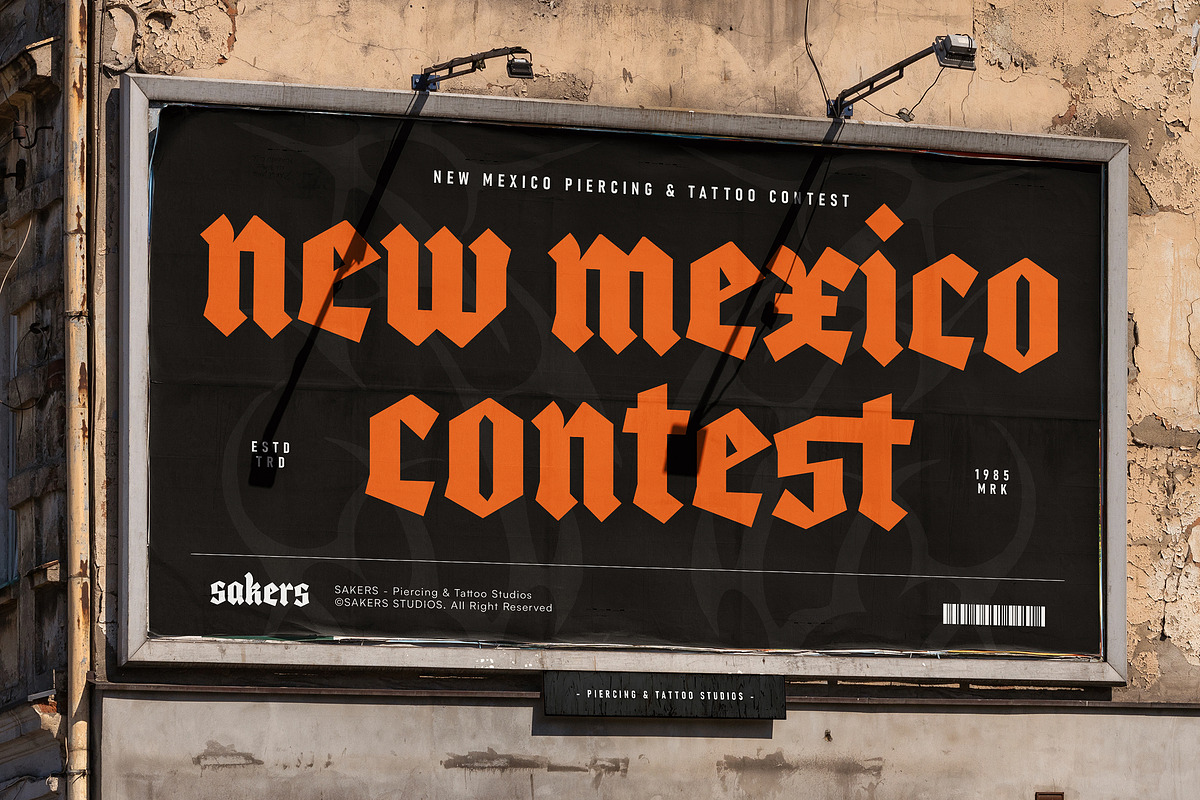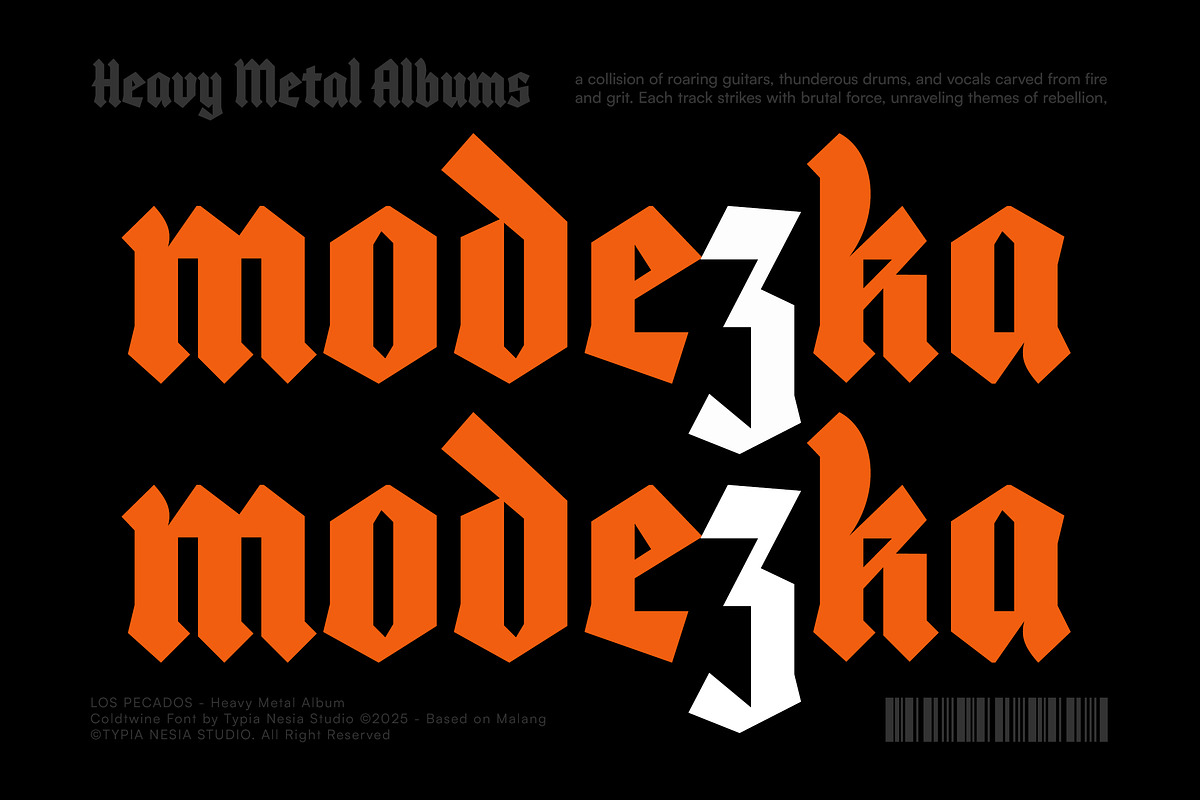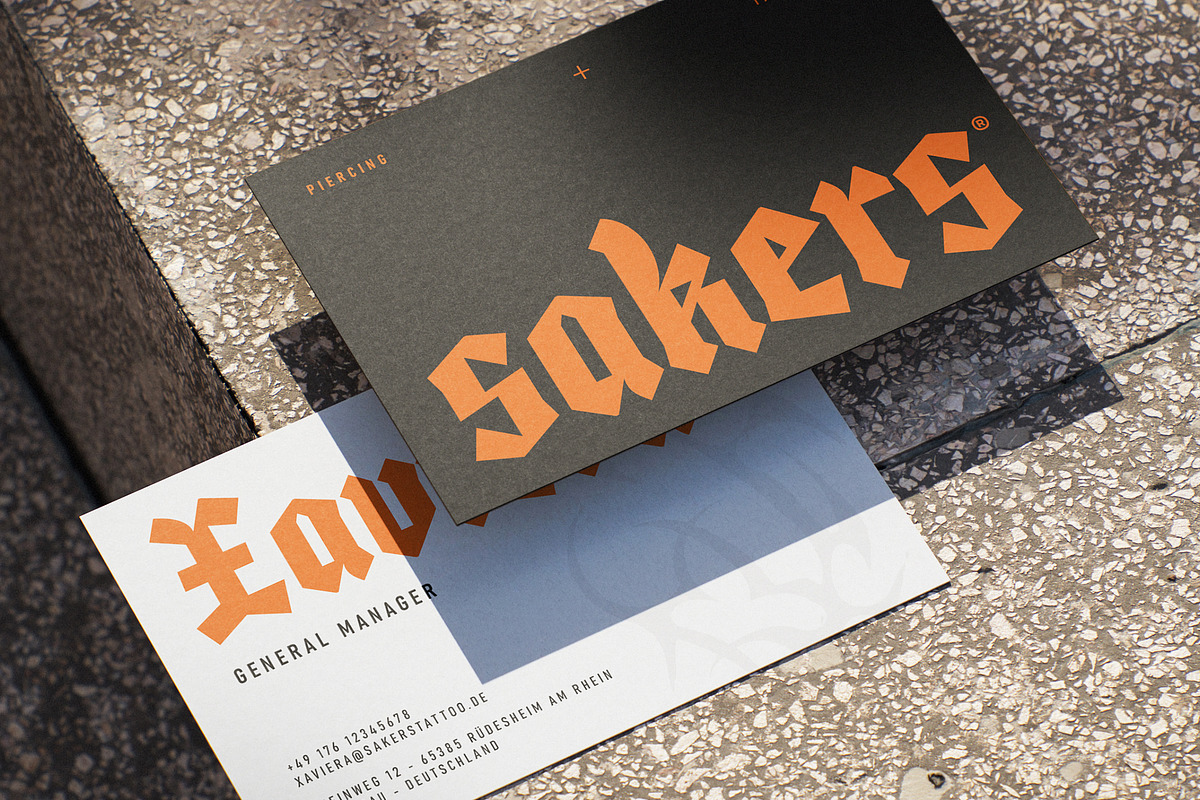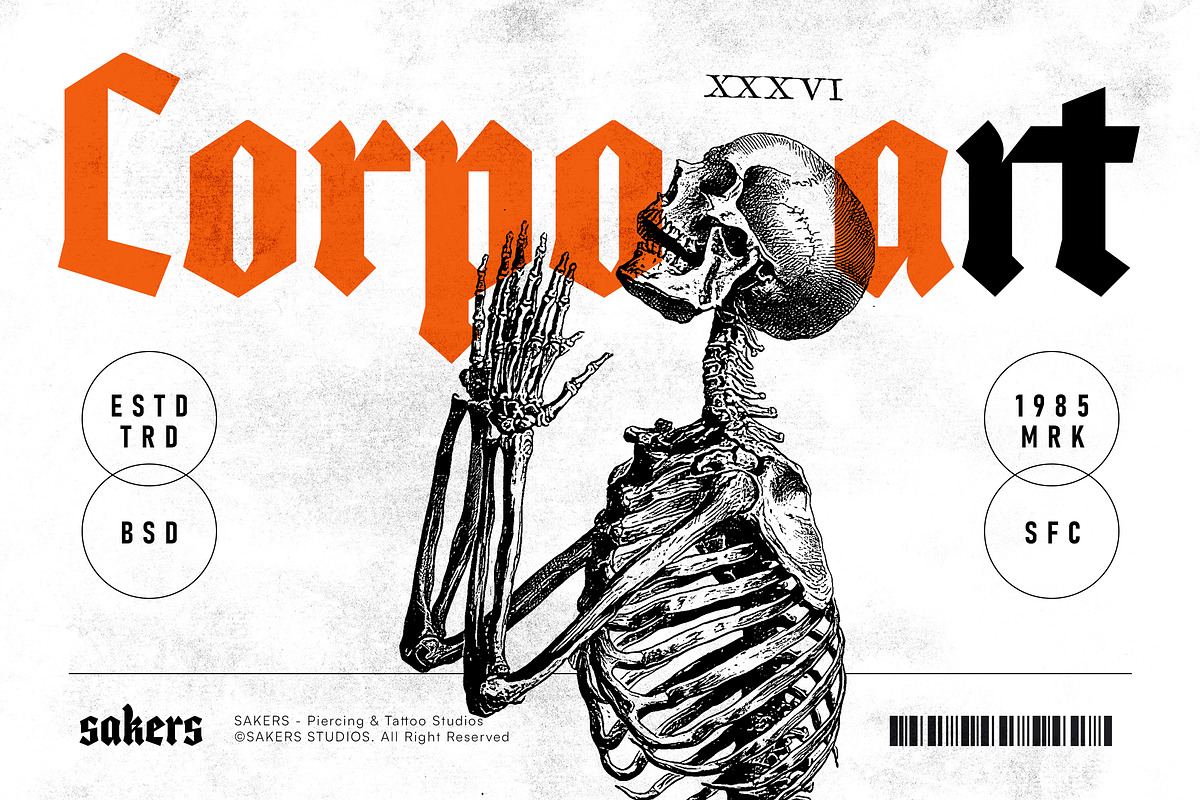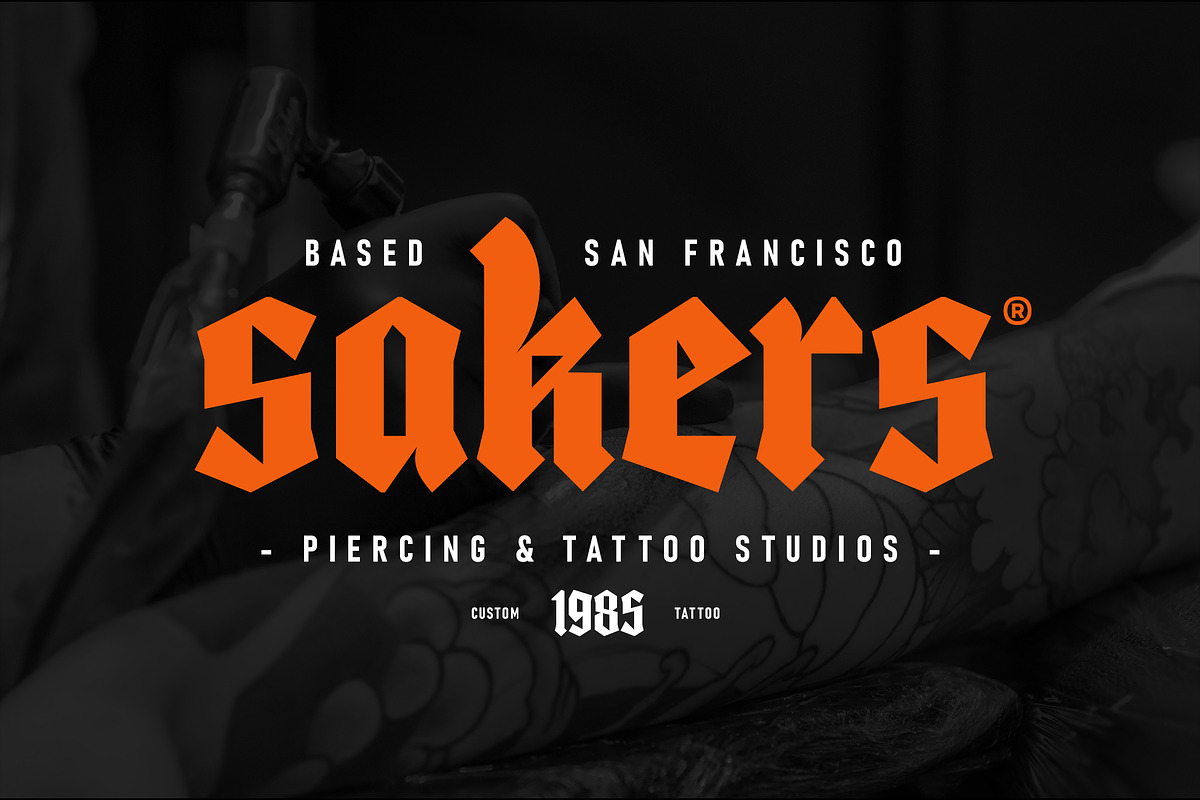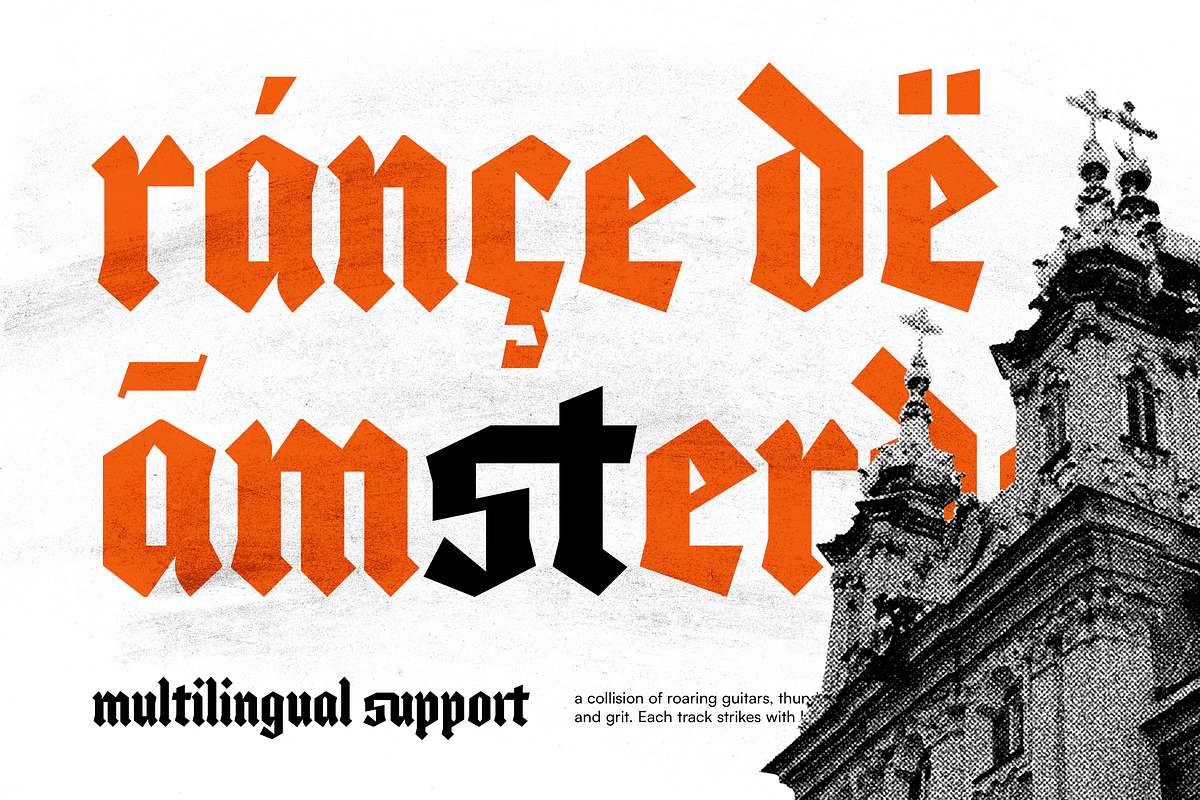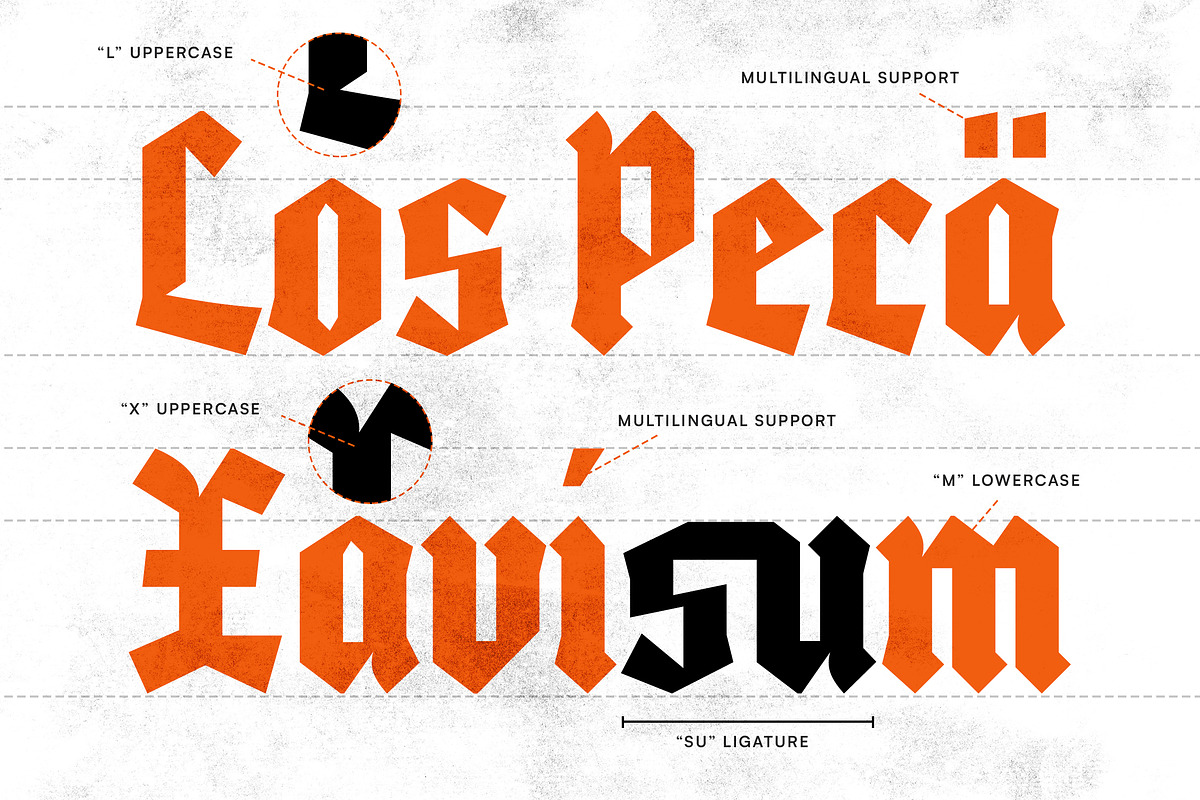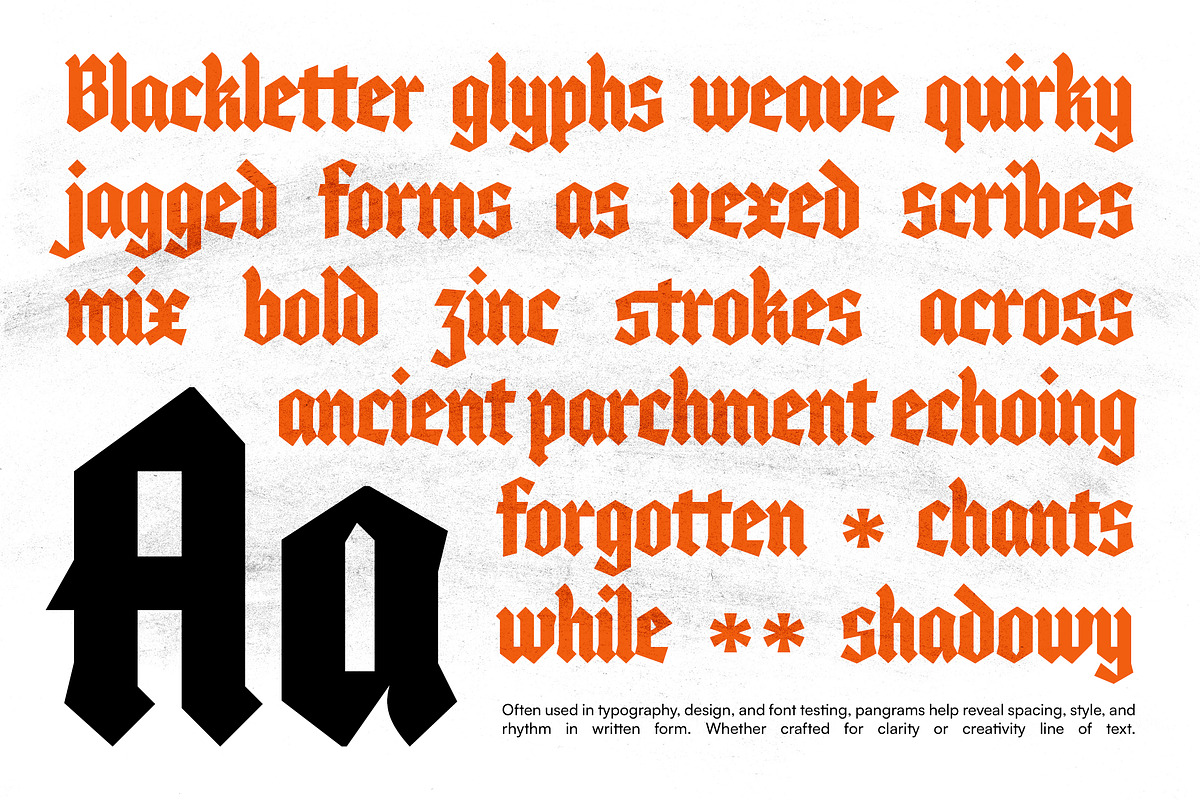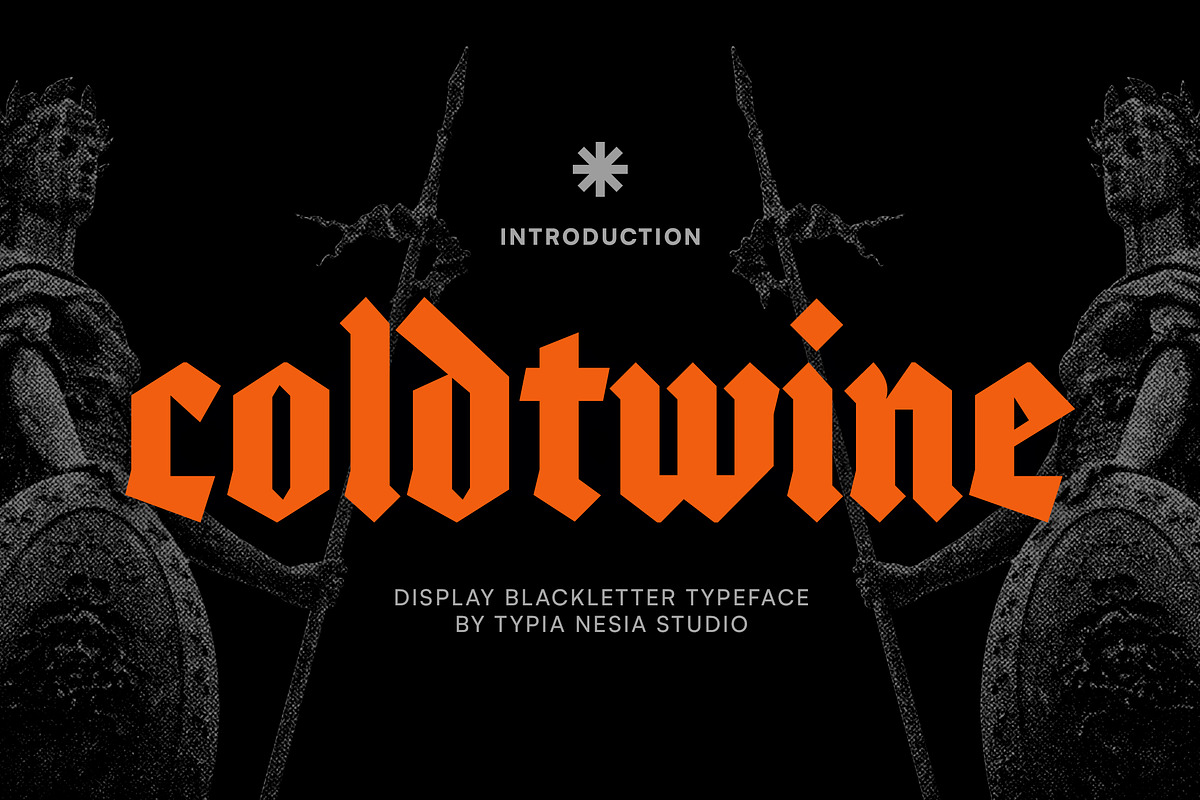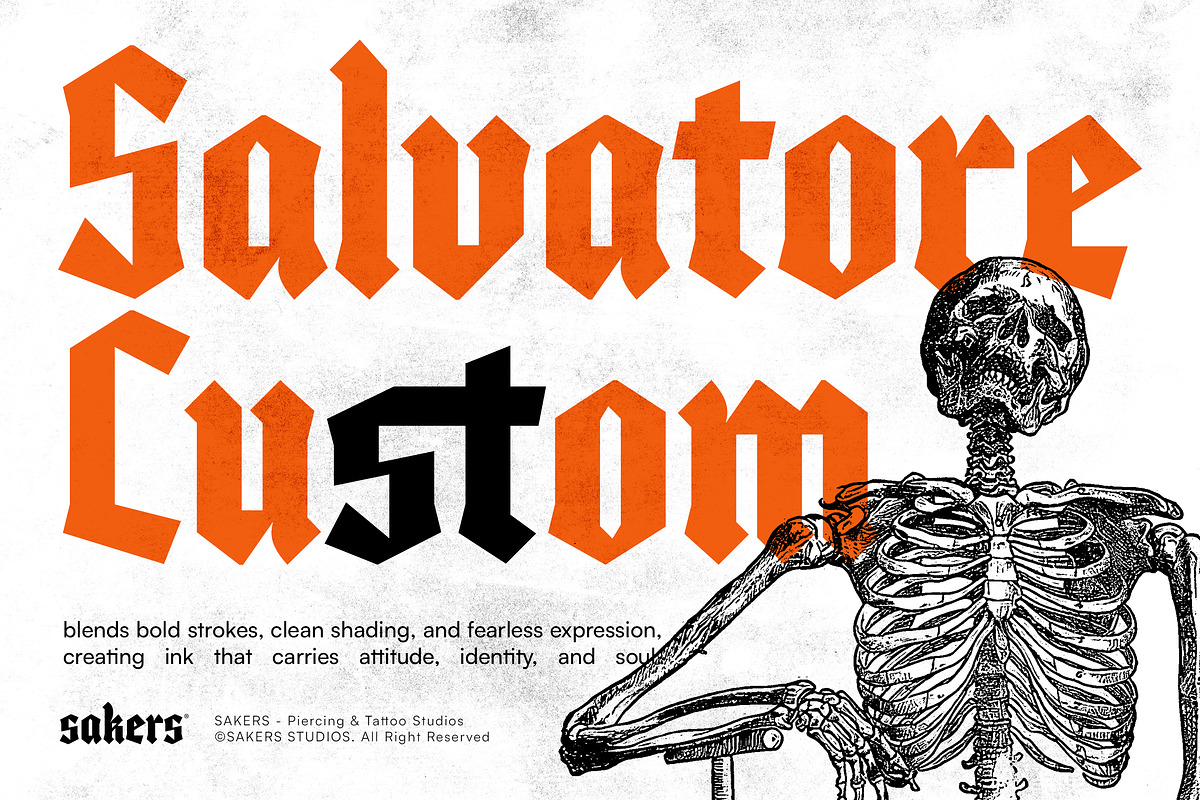
Coldtwine - Bold Gothic Blackletter
Coldtwine - Bold Gothic Blackletter Font - Classic Vintage Logo Display Font
Coldtwine – Bold Gothic Blackletter Font is a powerful display typeface inspired by medieval, old English, and classic blackletter traditions, designed to deliver a dark, intense, and authoritative visual impact. Coldtwine perfectly captures a hardcore, vintage, and old-style aesthetic that stands out in music artwork, game titles, dramatic logos, striking poster designs. Its bold structure and classic blackletter details make it ideal for horror, dark, fantasy themes, and any projects that demand power, mystery, and depth. Use Coldtwine to create bold gothic visuals that leave a lasting impression.